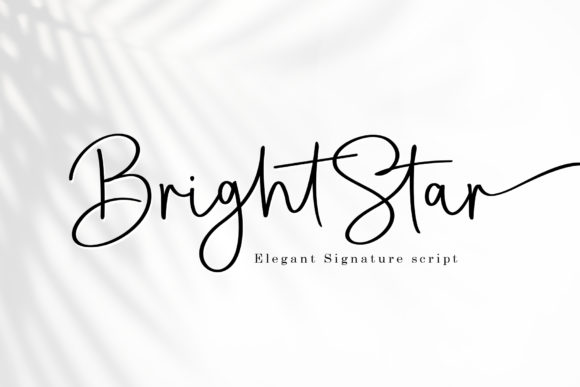
Unveil Bright Star, a cursive script font crafted with meticulous care by Sulthan Studio, the masters of digital artistry. This remarkable font is no ordinary typeface; it's an open invitation to embark on an enchanting journey through the world of lettering. Imagine the allure of a handwritten note adorned with the elegance of Bright Star, its flowing strokes capturing the essence of heartfelt emotions.
With Bright Star, your designs will transcend the mundane and embrace a realm of beauty and sophistication. Its delicate curves and graceful lines will bestow a touch of elegance upon your creative endeavors, captivating the hearts of your audience. Each letter dances gracefully across the page, like a cascade of stars illuminating the night sky, leaving an indelible mark on the hearts of those who behold it.
Indulge in the versatility of Bright Star, a font that adapts seamlessly to a myriad of projects. Whether you're crafting a heartfelt message, designing an alluring logo, or creating eye-catching marketing materials, Bright Star rises to the occasion, adding a touch of magic to each endeavor. Its timeless charm will elevate any project to new heights, leaving a lasting impression that lingers long after the page is turned.
But Bright Star is more than just a collection of letters; it's an expression of artistry, a reflection of the human spirit, and a testament to the transformative power of creativity. With every stroke of this font, you'll discover a hidden gem, a spark of inspiration, a whisper of untold stories waiting to be unveiled.
So, embrace the radiant brilliance of Bright Star, and let your imagination soar to new heights. Unlock the boundless potential of this extraordinary font, and watch as your designs blossom into masterpieces that capture the essence of beauty, grace, and timeless elegance.